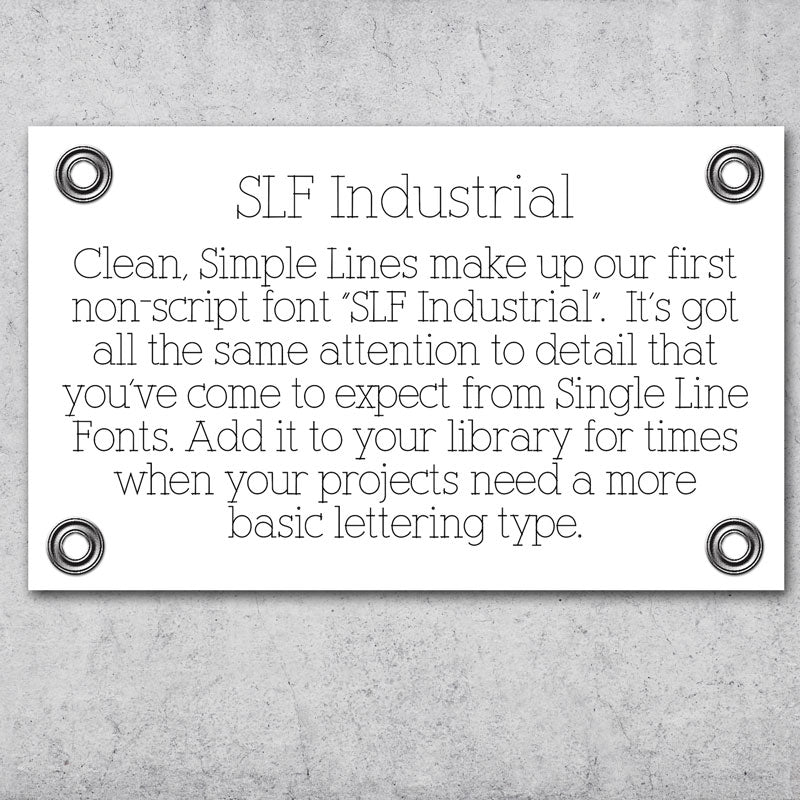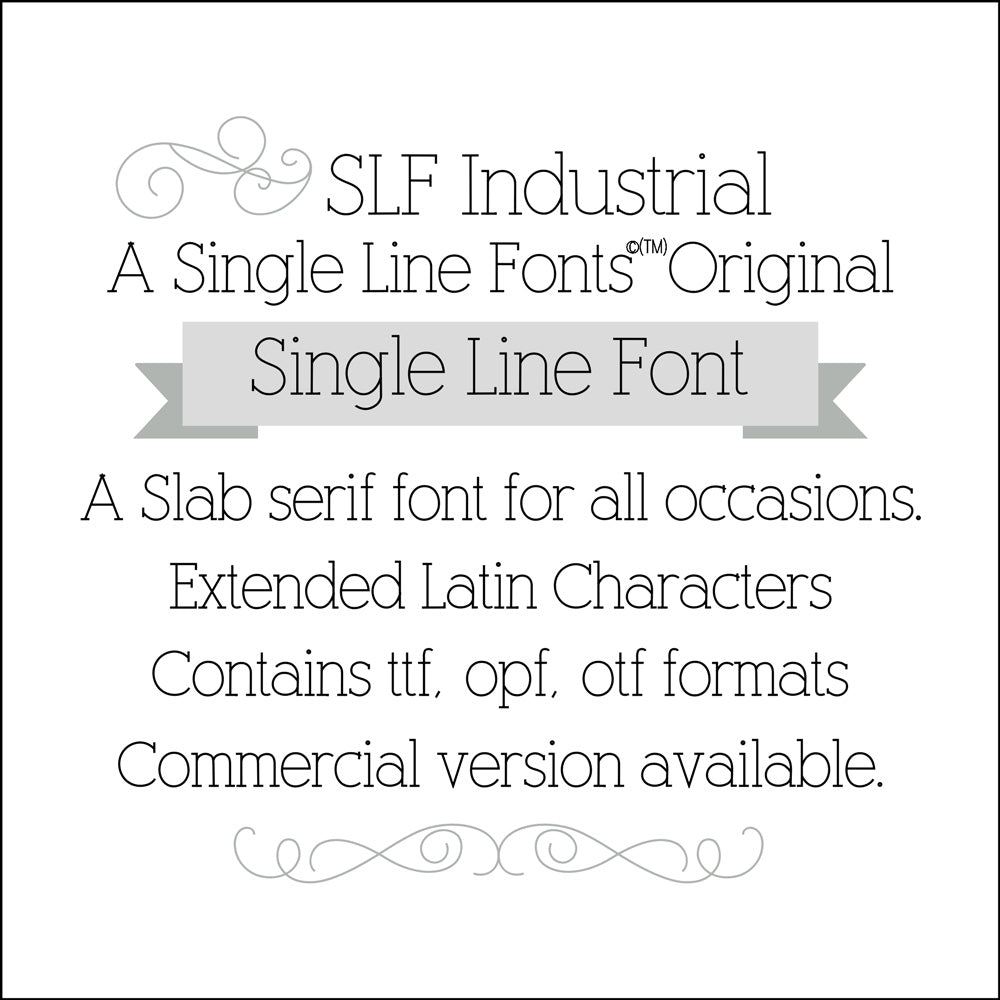
SLF Industrial – Clean Slab Single Line Font for Engraving & Labels
SLF Industrial is a classic, clean slab-style single line font that was requested by an engraver who needed simple, highly readable lettering for real-world engraving jobs. It’s a go-to option when you want straightforward text that engraves cleanly for labels, plates, tags, tools, and maker projects.
This font includes an extended Latin character set (see the character map image), making it a great option for multilingual projects.
• Engraved labels, plates, tags, and tools
• Pen plotters and Foil Quill projects
• Clean, understated lettering for cards and crafts